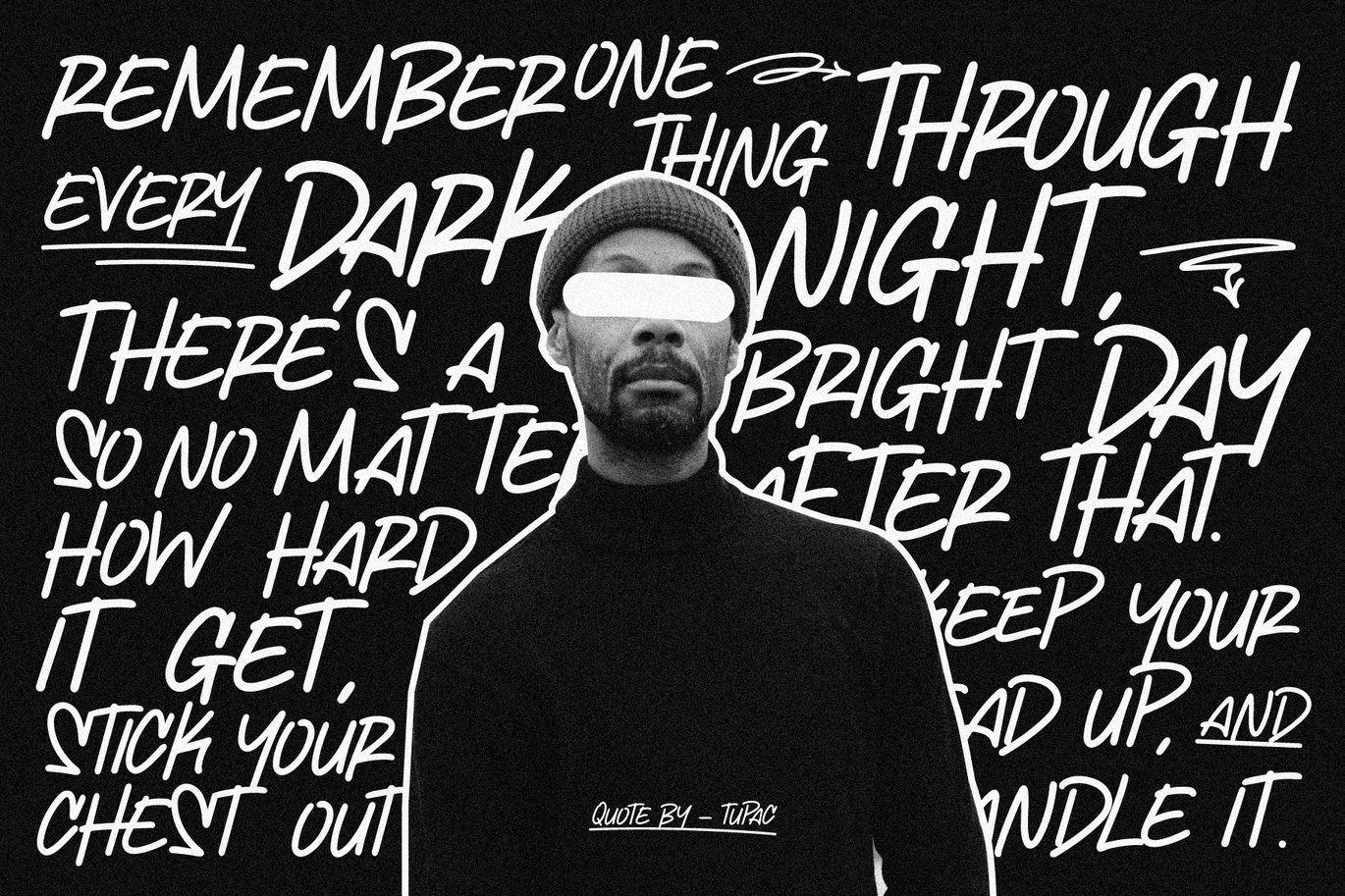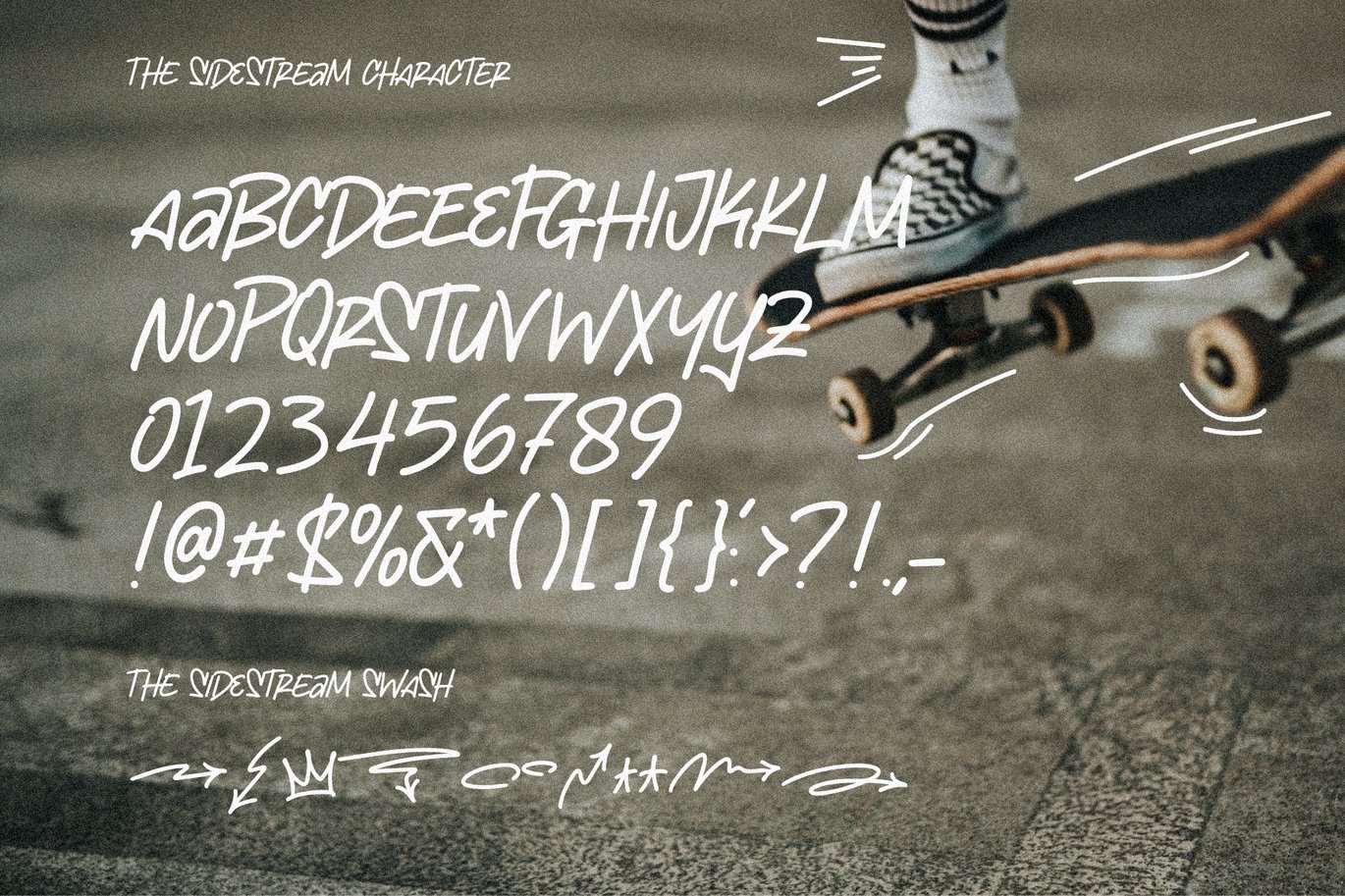
The Sidestream – Handwritten Display Font
The Sidestream – Handwritten Display Font is a versatile typeface ideal for various projects, including Sans-Serif, logos, branding, posters, blog headers, advertisements. The free version includes a full set of uppercase and lowercase letters, available in OTF, TTF, WOFF format.